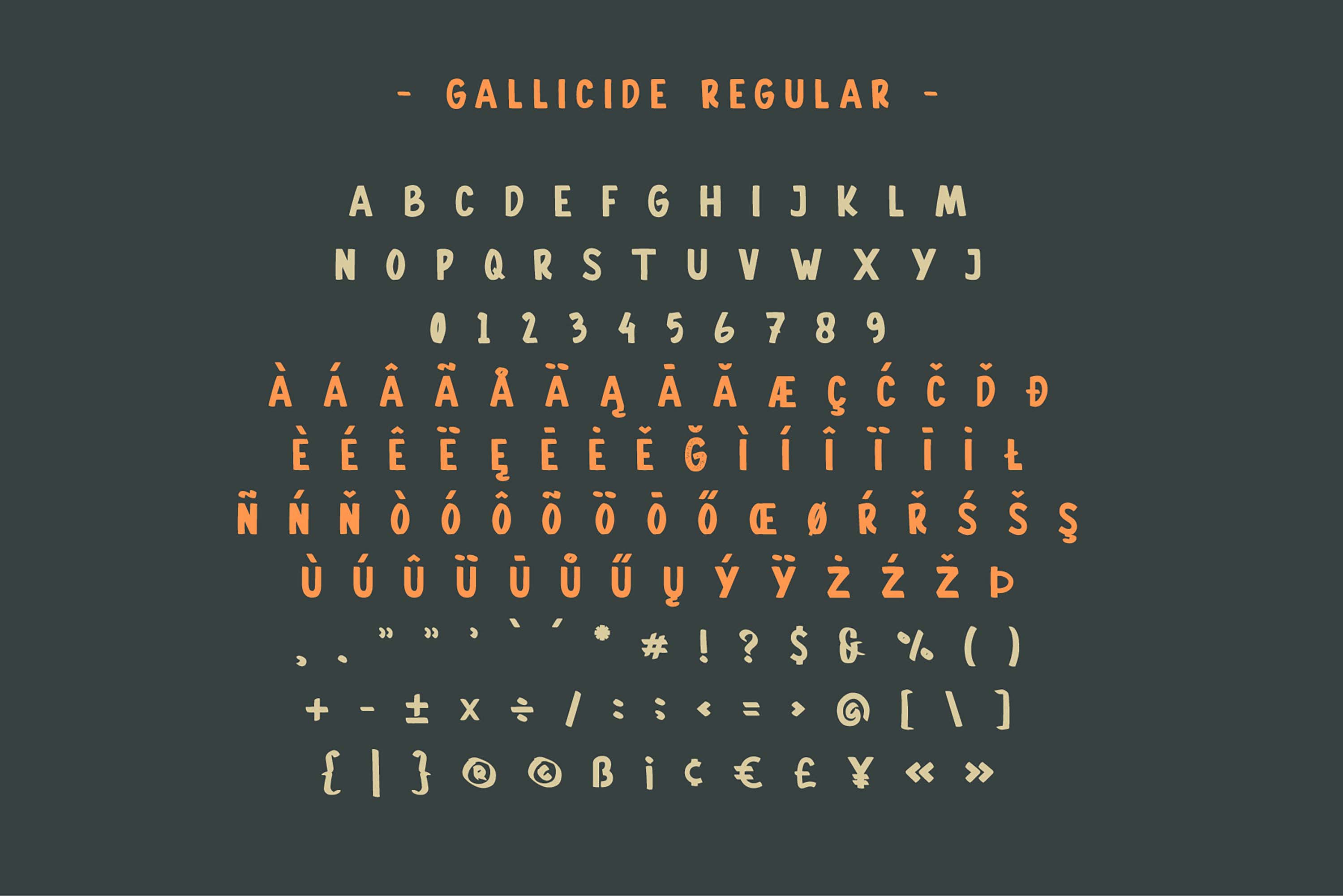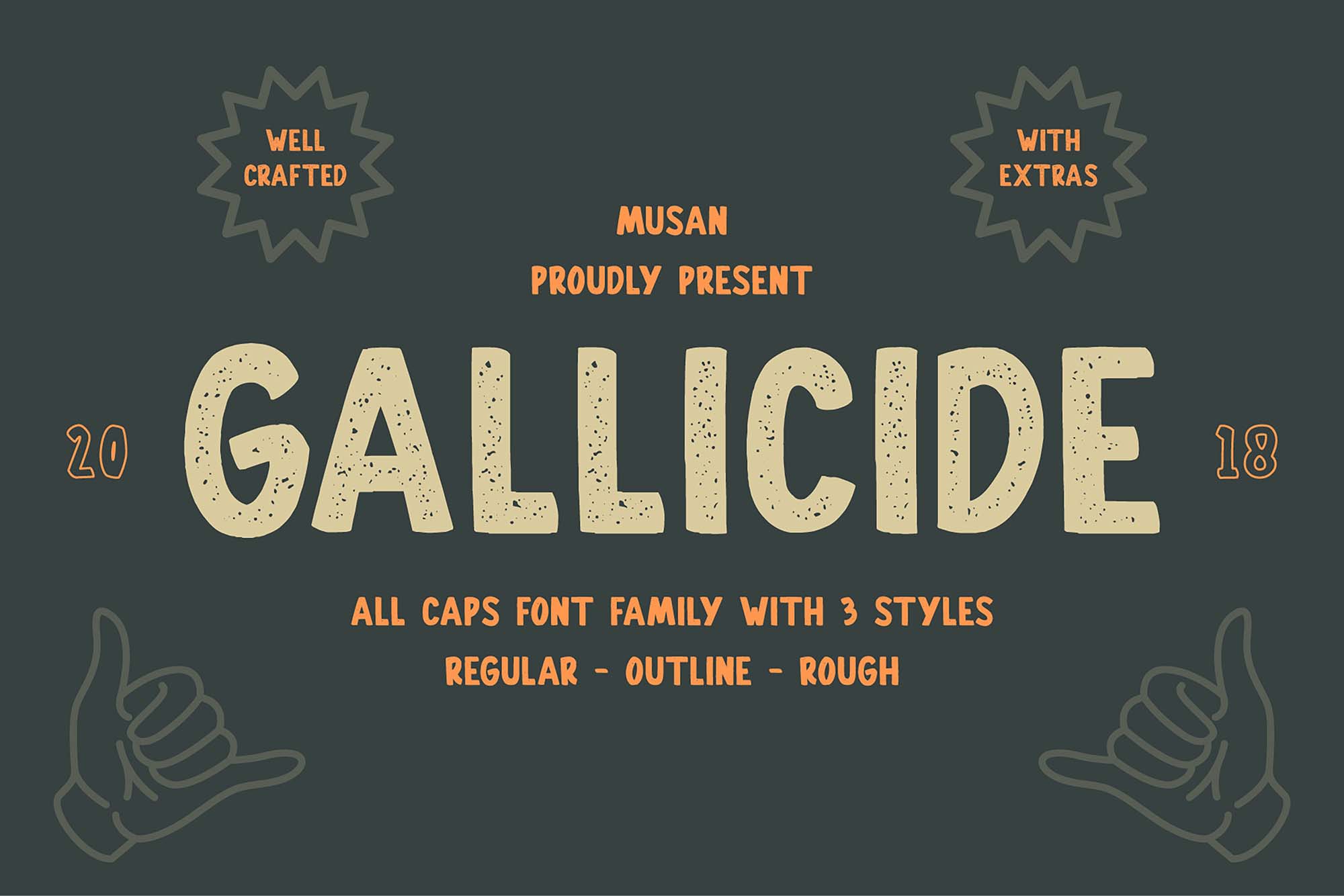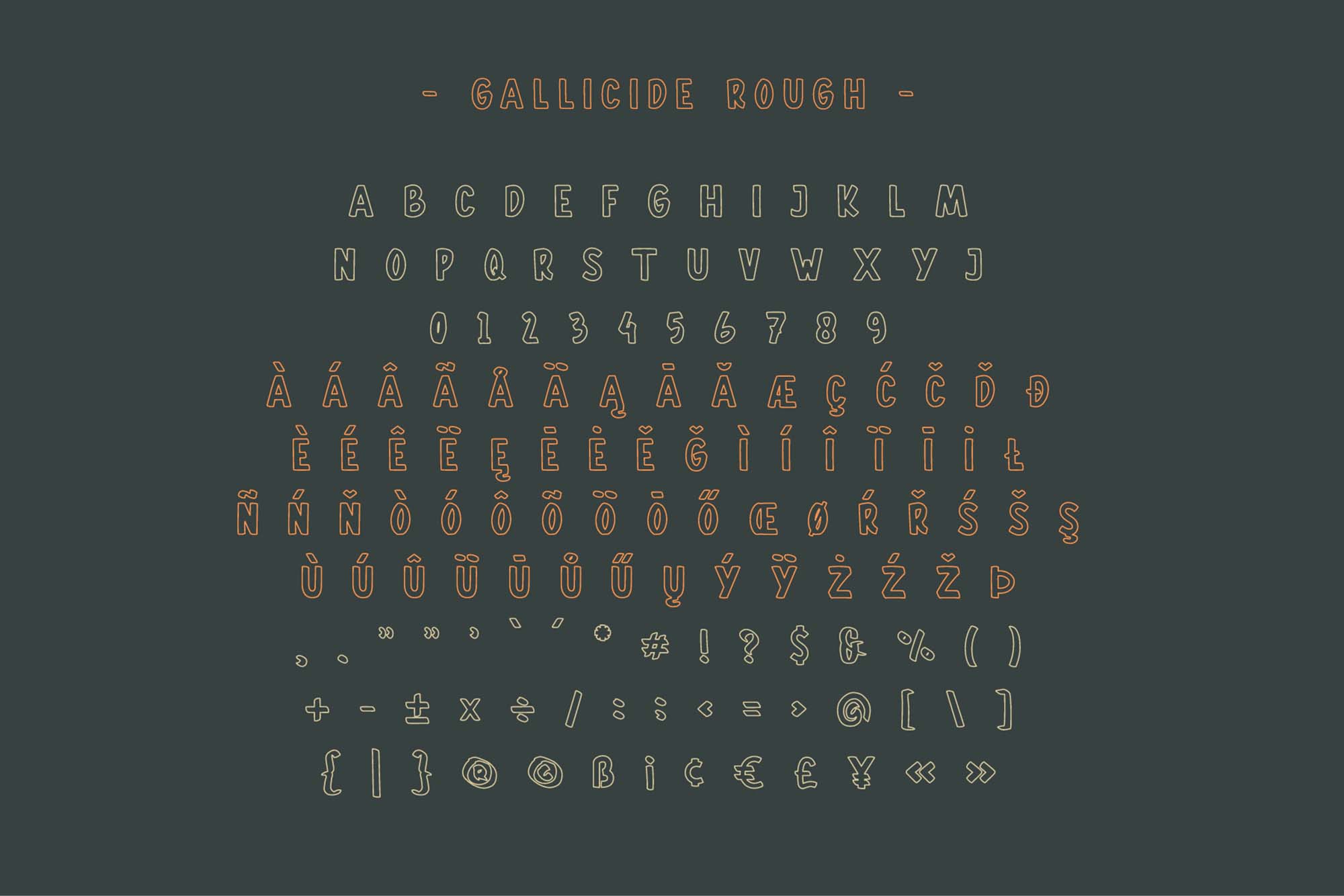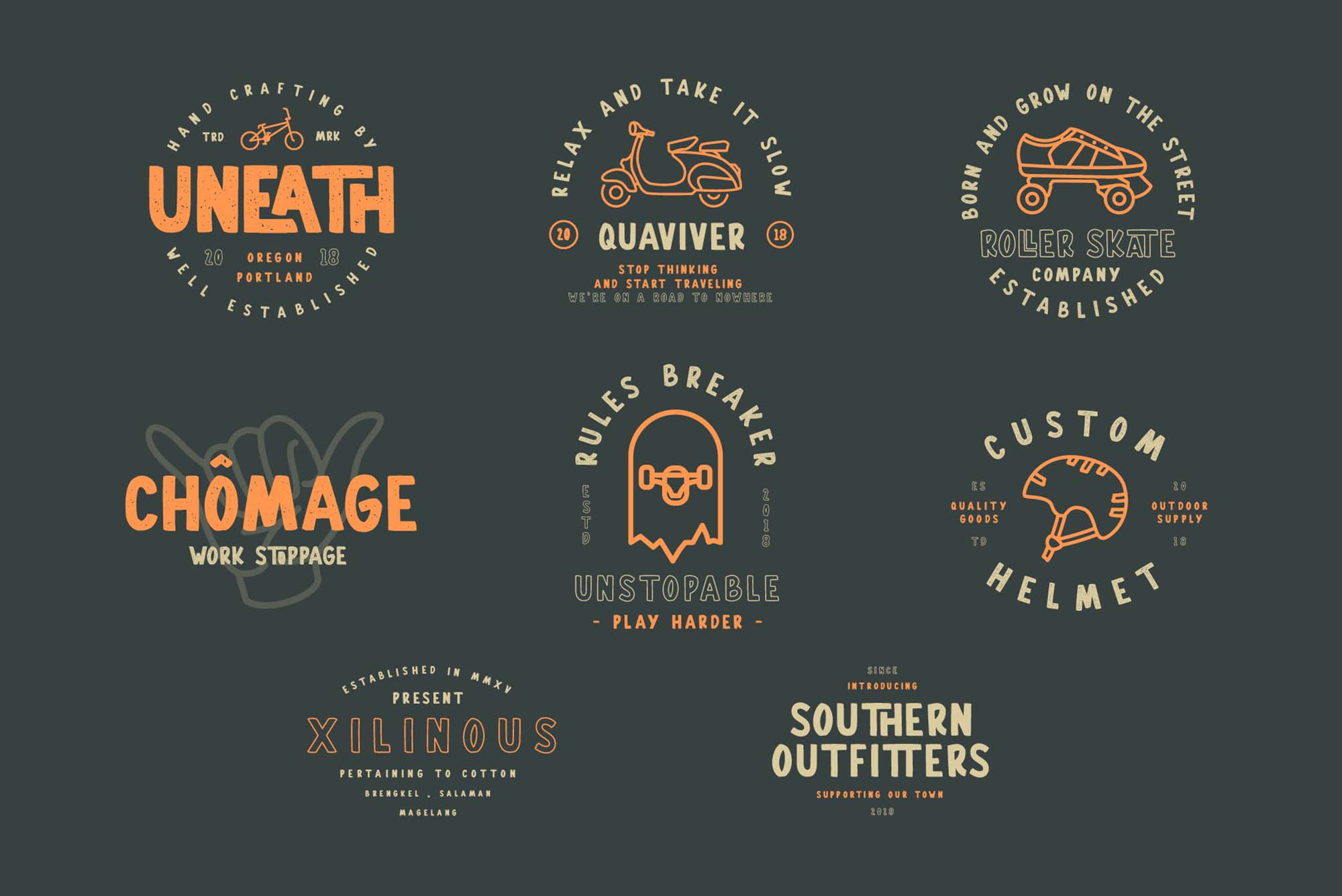
Gallicide Font
This is a unique stylish Gallicide font. This font is perfect for adding a personal charm to your logos, branding, social media, advertisements, invitations, product designs, product packaging, etc. Have fun using it!